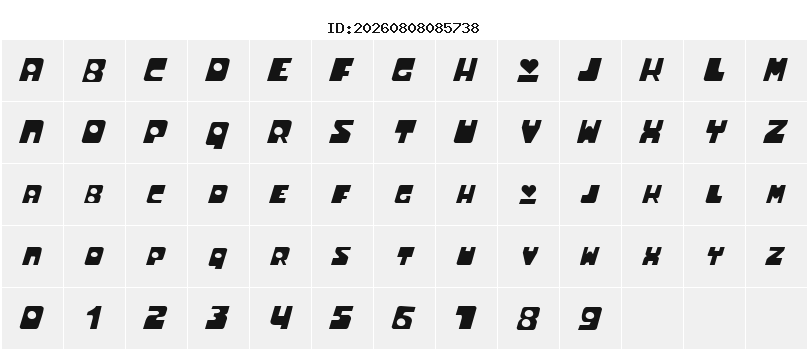
Powerpuff Preview
• Font Name: Powerpuff
• Full Font Name: Powerpuff
About Powerpuff.ttf
Powerpuff.ttf is a modern, elegant sans-serif font designed for ultimate readability and visual harmony. Perfect for branding, headlines, web design, and print materials.